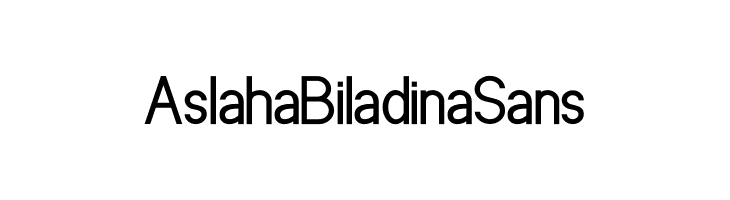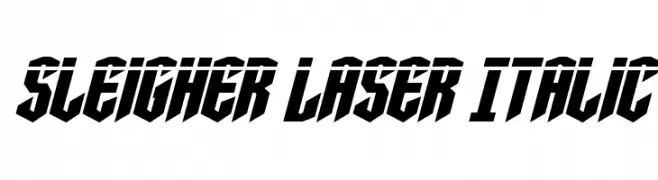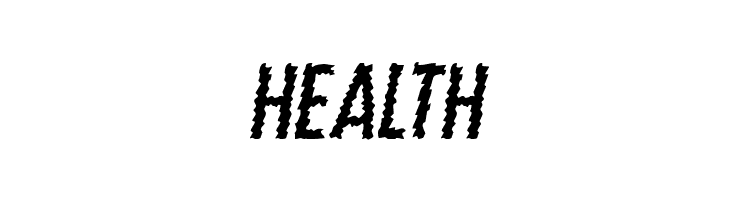
A bold, geometric font with sharp angles and a futuristic style.
A geometric, modern font with clean, rounded edges.
A decorative serif font with ornate and whimsical flourishes.
A playful, narrow font with rounded edges, perfect for creative projects.
A bold, energetic brush-style font with dynamic and expressive characters.
A jagged, dripping font ideal for spooky themes.
A graceful and flowing script font with elegant, connected letters.
An elegant script font with flowing, cursive strokes and artistic flair.
A playful, handwritten font with tall, narrow letters and a whimsical style.
An angular, outline font with a futuristic and edgy design.